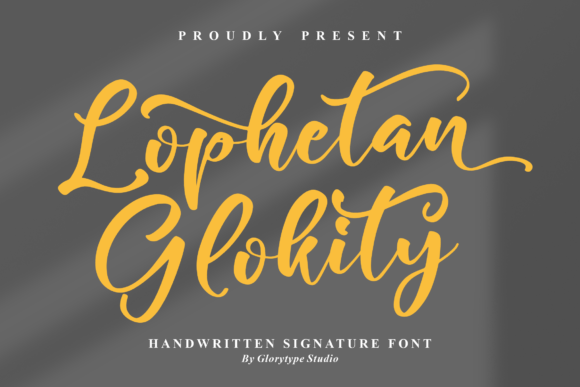
Welcome to the world of Lophetan Glokity Font, a captivating script font crafted by the artists at Glorytype Studio. This magical font is the perfect blend of elegance and creativity, designed to transform your digital creations into stunning works of art.
Immerse yourself in the enchanting world of Lophetan Glokity, a font that dances and flows with grace. Its meticulously crafted curves and flourishes evoke a sense of whimsy and charm, adding a touch of magic to your designs. Whether you're crafting social media posts, designing logos, or creating eye-catching posters, Lophetan Glokity is your perfect companion.
Step into the realm of Instagram artistry with Lophetan Glokity, the font that elevates your content to new heights. Its enchanting style adds a touch of sophistication to your stories, posts, and reels, making your feed a visual masterpiece. Let Lophetan Glokity cast its spell on your audience, captivating them with its beauty and originality.
For those with a passion for DIY projects, Lophetan Glokity is your secret weapon. Its versatility knows no bounds, allowing you to create stunning invitations, greeting cards, and personalized gifts that leave a lasting impression. Unleash your creativity and let Lophetan Glokity transform ordinary projects into extraordinary keepsakes.
The power of Lophetan Glokity lies in its PUA encoding, granting you effortless access to a treasure trove of glyphs and ligatures. This opens up endless possibilities for customization, enabling you to add intricate details and flourishes that bring your designs to life. With Lophetan Glokity, the only limit is your imagination.
Don't settle for ordinary fonts. Embrace the magic of Lophetan Glokity and unlock a world of creative possibilities. Let this enchanting script font elevate your designs, captivate your audience, and transform your creative visions into extraordinary realities. Experience the beauty of Lophetan Glokity today and let your imagination soar!